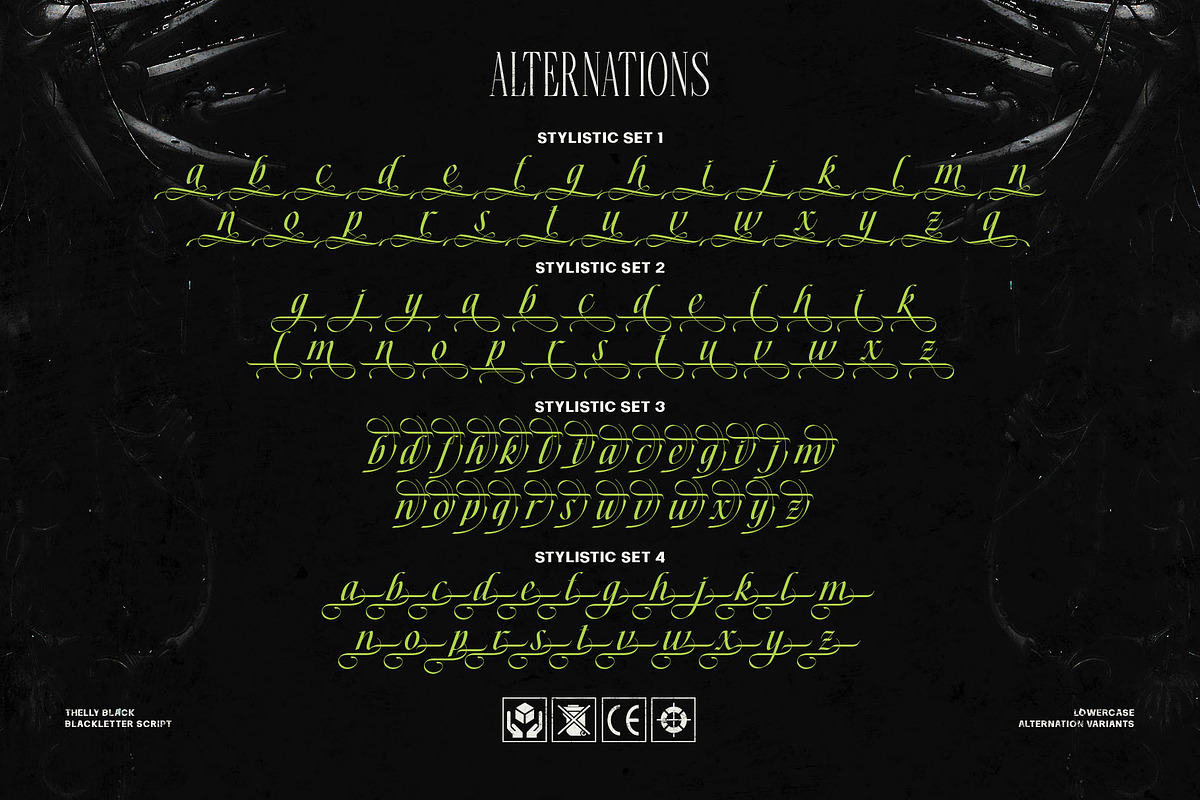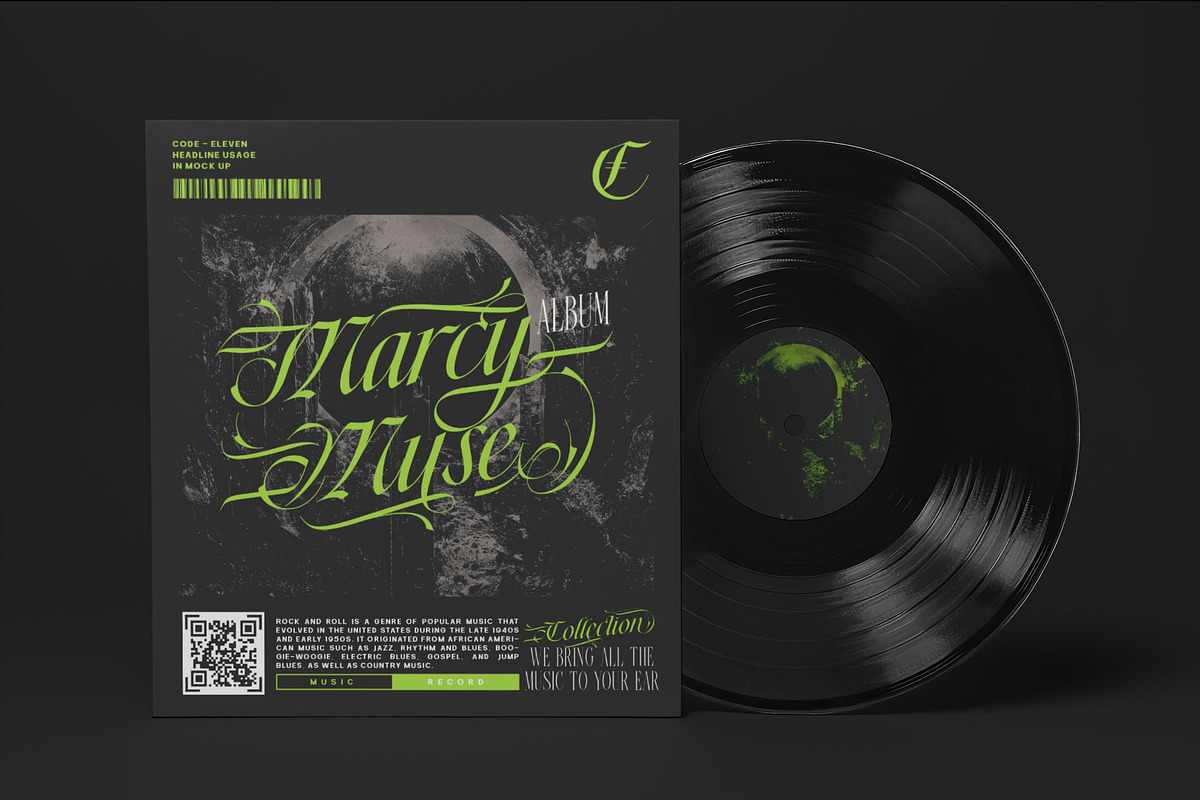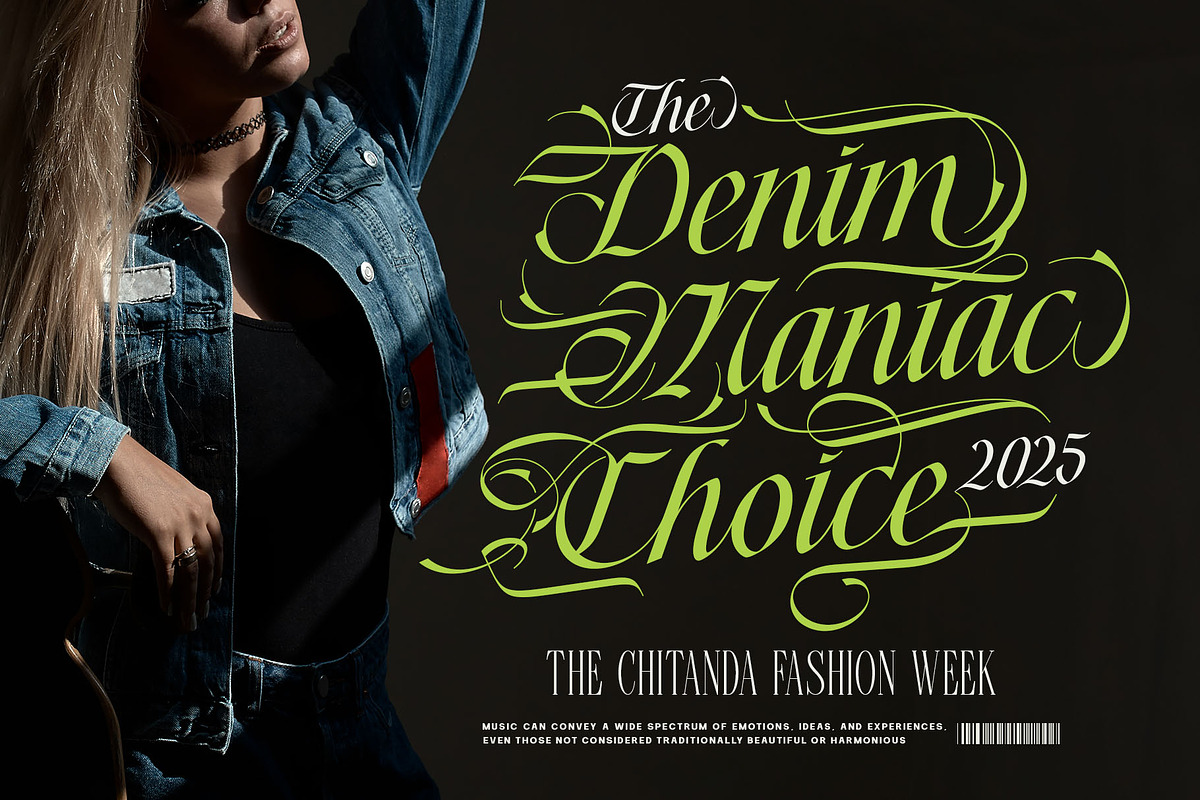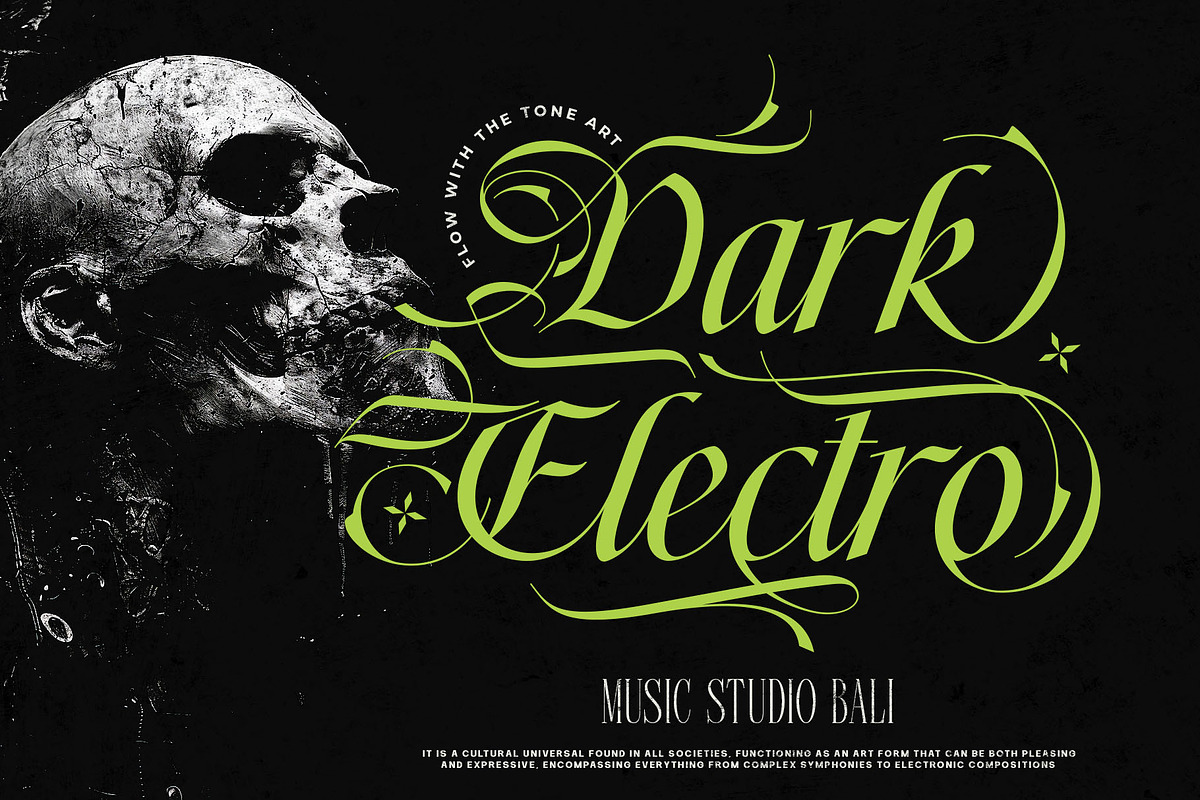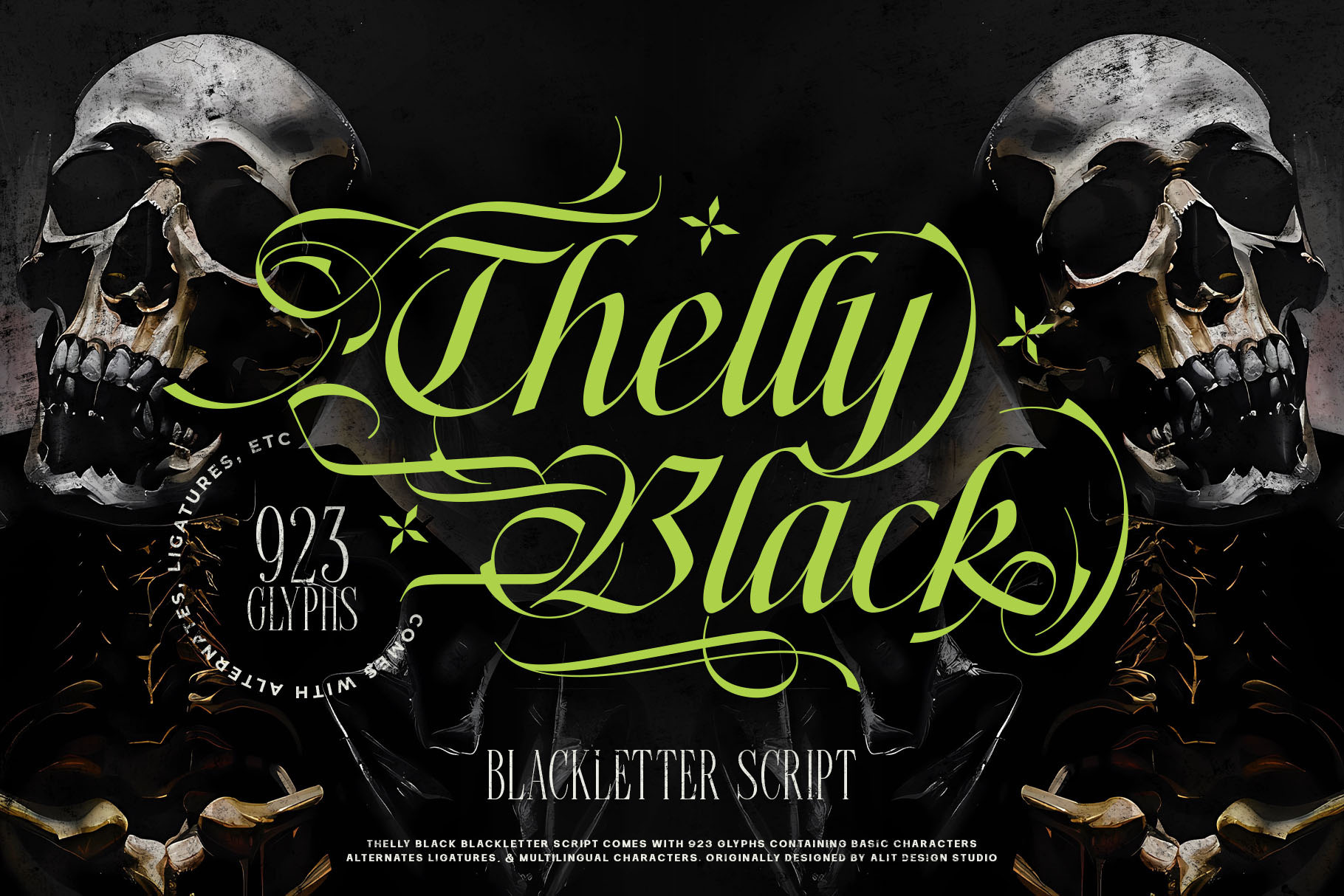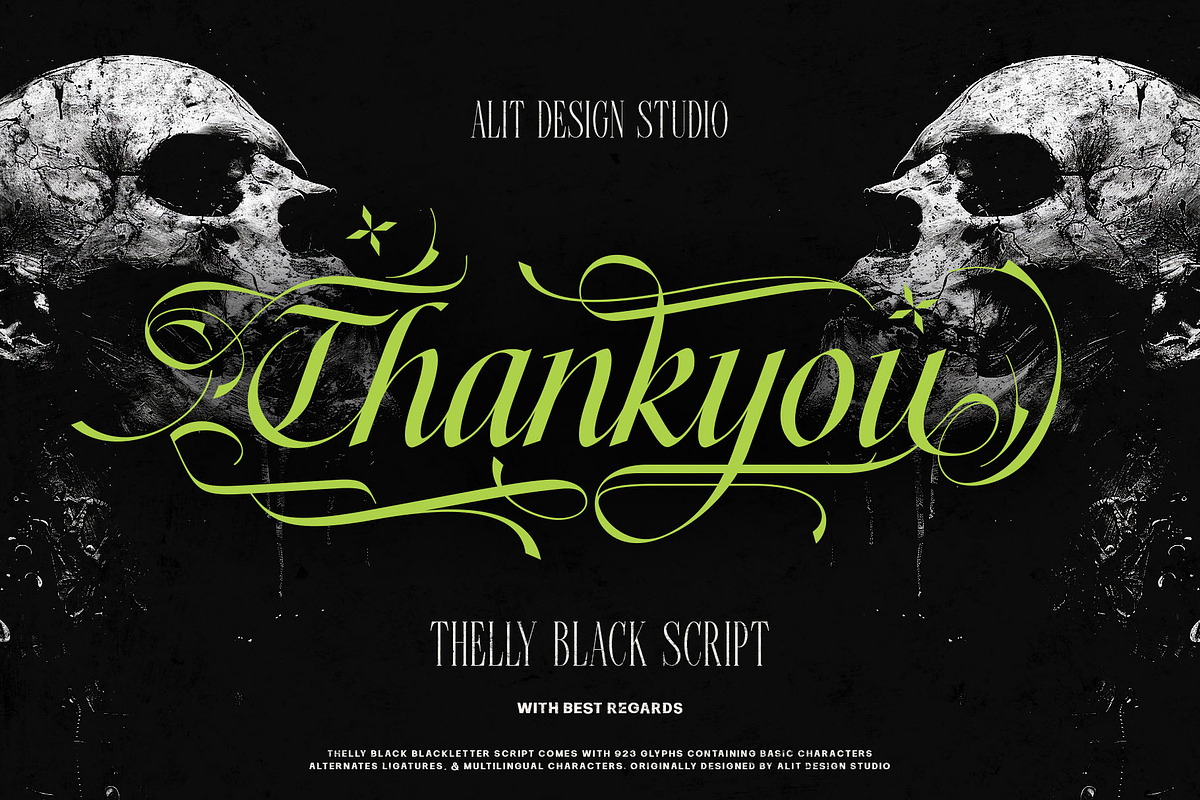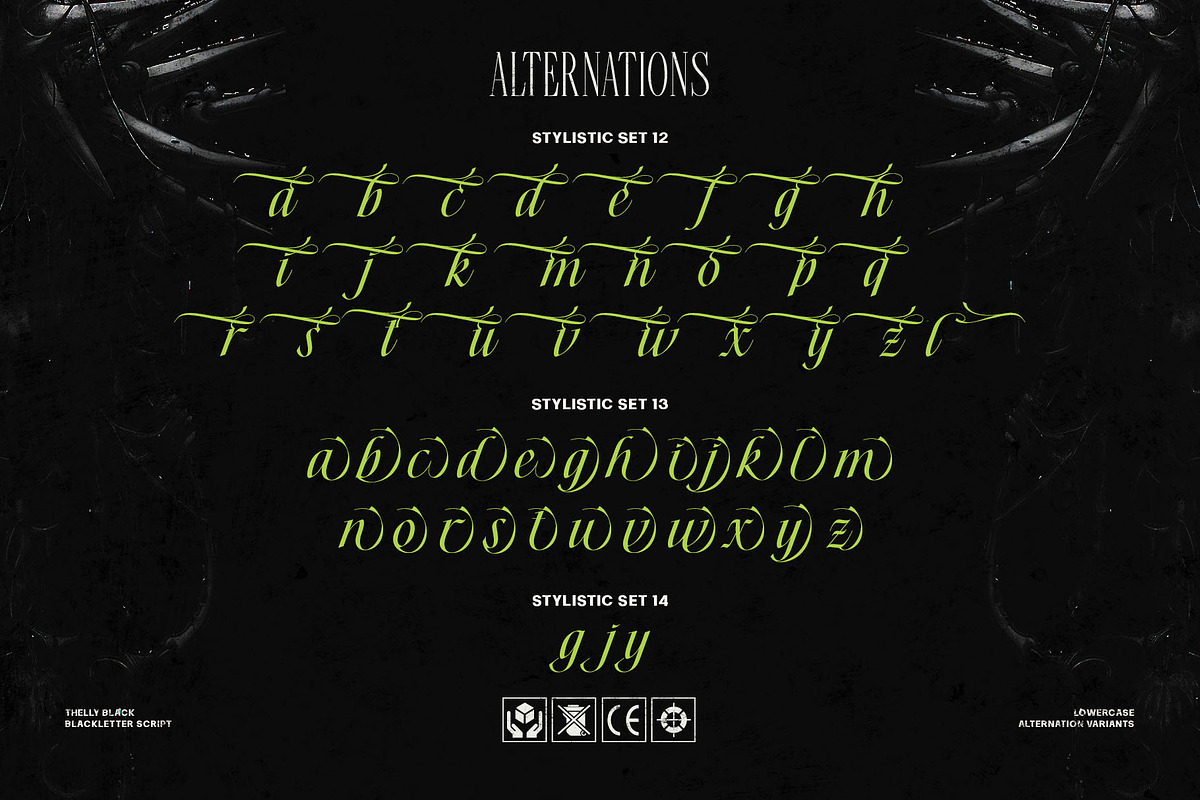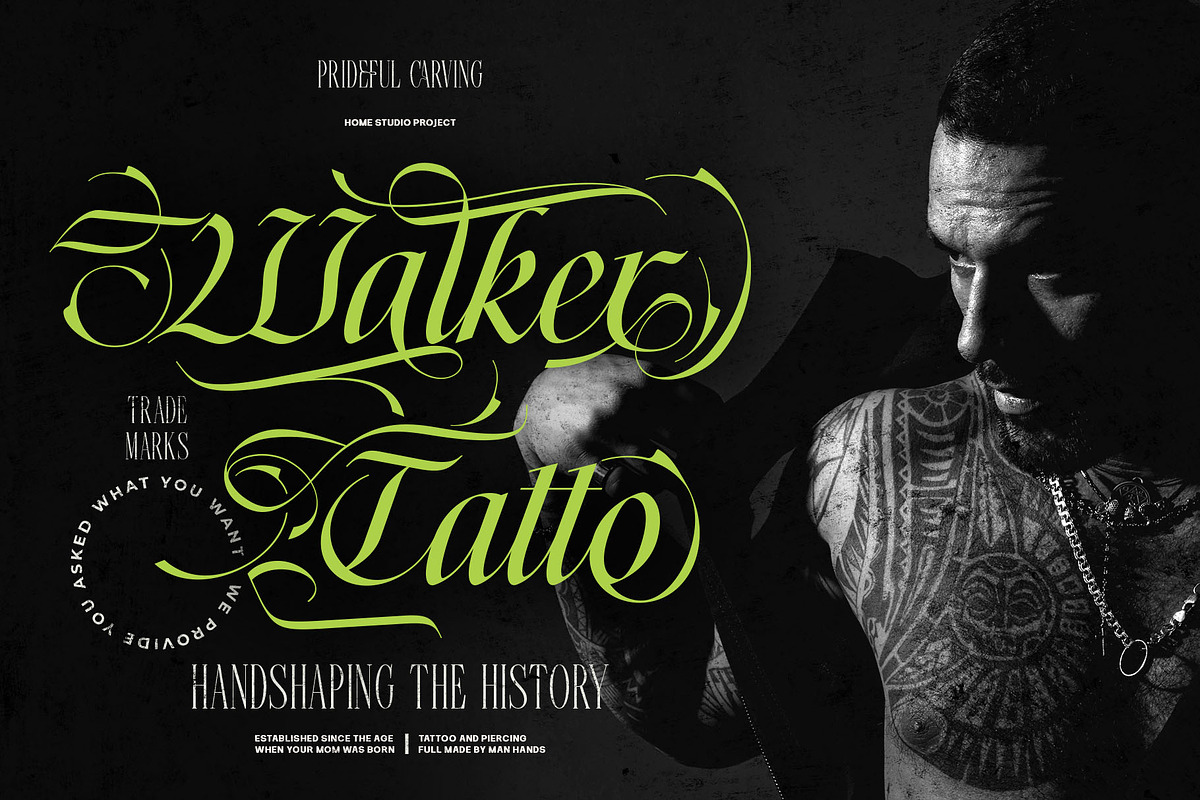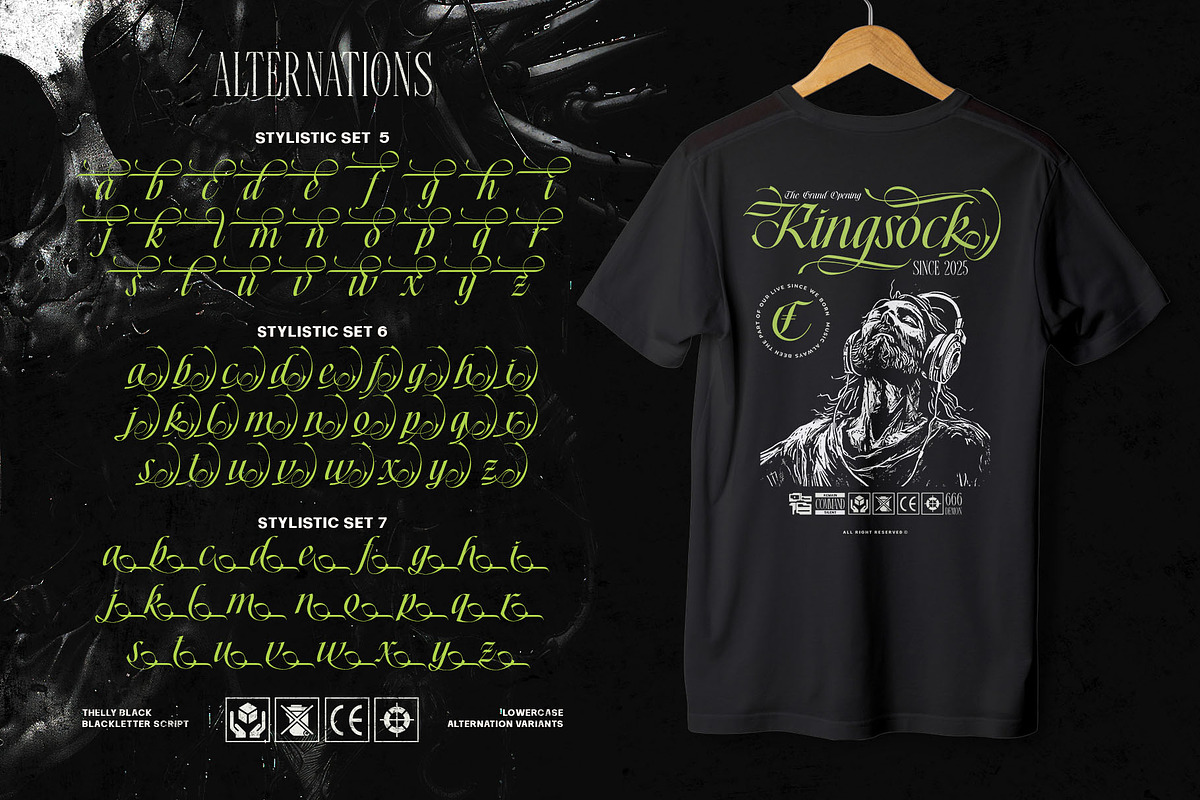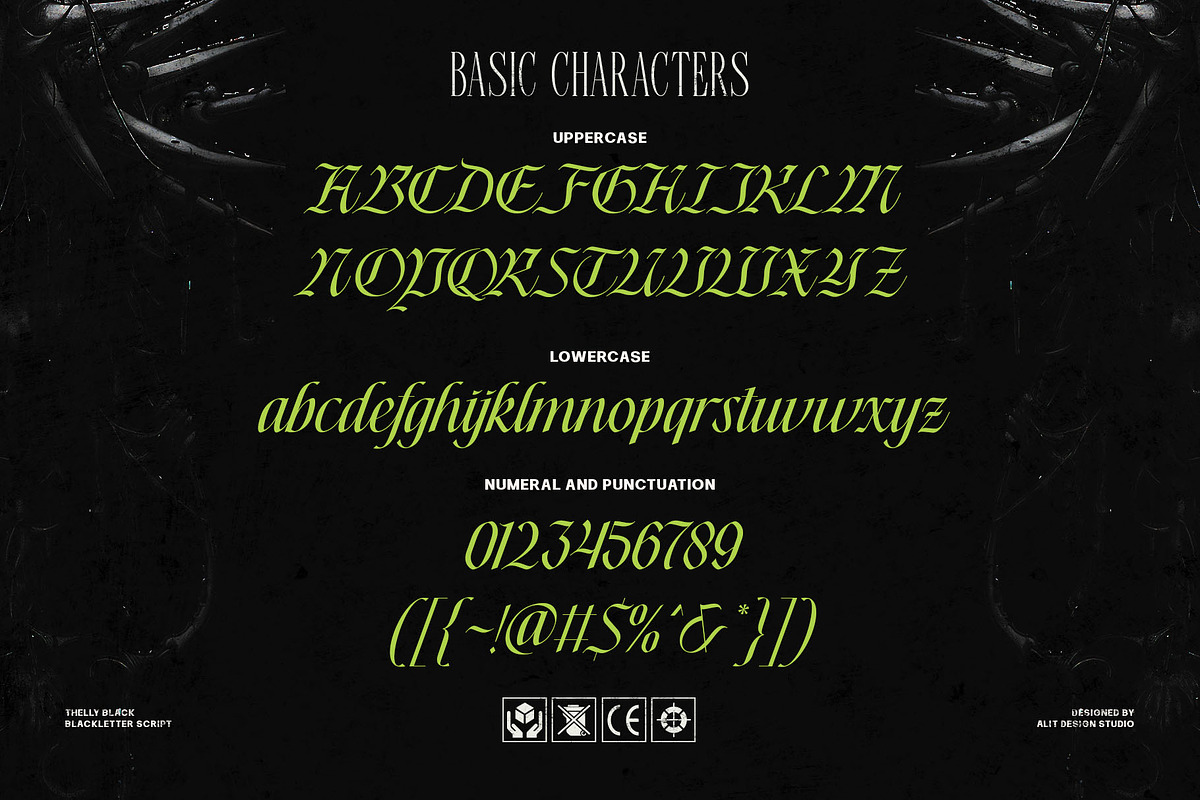
Thelly Black Typeface
Thelly Black | A Blackletter Symphony of Darkness and Style
Unleash the untamed spirit of rebellion and intricate elegance with Thelly Black, a commanding blackletter script typeface designed to make a devastating impact.
Step into the shadows where classic calligraphy collides with a raw, modern edge. Thelly Black is not merely a font; it is an arsenal of creative power. Each character is meticulously crafted, flowing with a fierce energy that is both beautiful and brutal. The sharp, decisive strokes and elaborate swashes give your text an unforgettable identity, perfect for projects that demand to be seen and felt.
With a staggering 923 glyphs, the power of customization is entirely in your hands. Thelly Black is packed with a vast array of stylistic alternates, ligatures, and decorative swashes, allowing you to transform every word into a unique piece of art. Whether you're crafting a menacing logo for a metal band, designing iconic branding for a tattoo studio, or creating powerful headlines that seize attention, Thelly Black provides the versatility you need to bring your dark vision to life.
- Music Industry: Album covers, band logos, tour posters (Metal, Hardcore, Goth, Dark Electro).
- Tattoo Culture: Studio branding, apparel, flash sheets, and typographic tattoos.
- Apparel & Fashion: Edgy streetwear brands, collection titles, and graphic tees.
- Branding: Liquor labels, high-impact event branding, and any project that requires a touch of sophisticated rebellion.
What makes Thelly Black essential?
- Massive Glyph Count: A huge library of 923 glyphs, including a vast selection of stylistic sets and alternates for ultimate customization.
- Powerful Aesthetics: A perfect fusion of traditional blackletter structure and fluid, script-like elegance.
- Full Character Set: Includes uppercase, lowercase, numerals, and a wide range of punctuation.
- Multilingual Support: Reach a global audience with extensive language support.
With Thelly Black, you're not just typing; you're carving a masterpiece. Embrace the darkness, command attention, and let your creativity run wild.